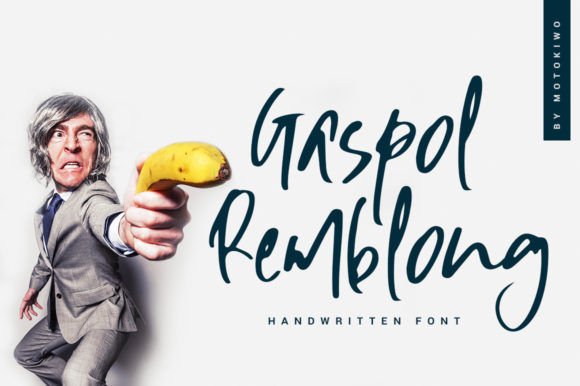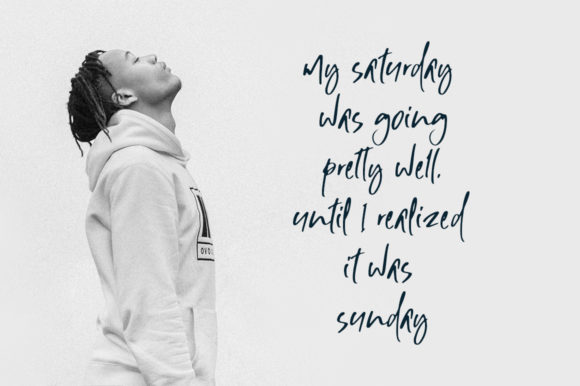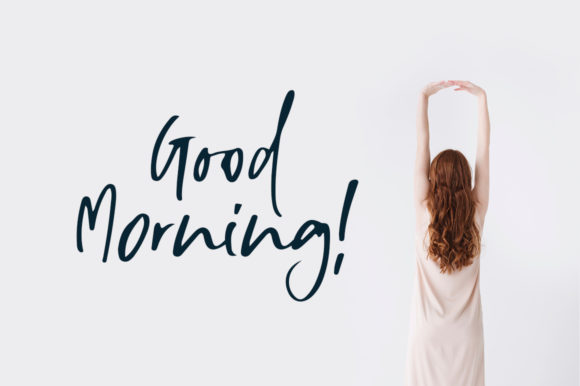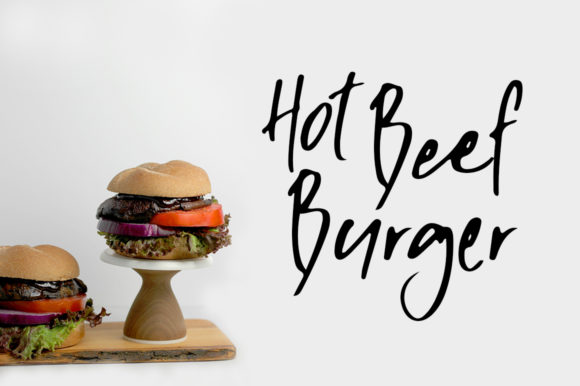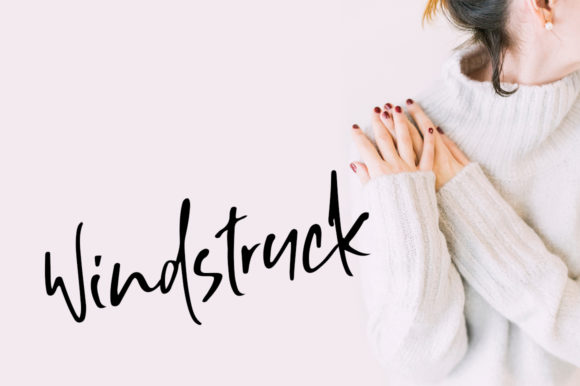
Gaspol Remblong Font
About Gaspol Remblong Font
Gaspol Remblong is a natural handwritten script font with attractive style. It’s fun typeface that works great for many designs!